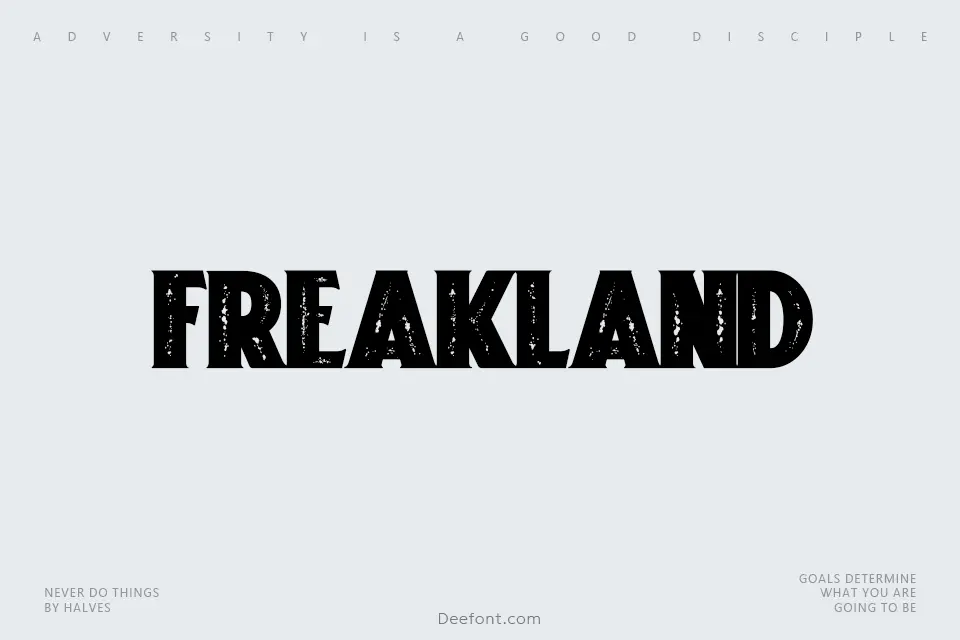
Freakland Font
Freakland Font is a bold and modern slab serif typeface designed to make a statement. With its rugged textures and strong letterforms, it brings a raw, industrial edge to your designs. Available in Regular, Italic, and Oblique styles, Freakland offers versatility for a range of creative projects, from branding and posters to headlines and logos. Its distressed details add character and depth, making it perfect for designs that demand attention and convey strength. Crafted with precision, Freakland Font combines modern aesthetics with a touch of vintage grit, delivering a powerful visual impact for any project.